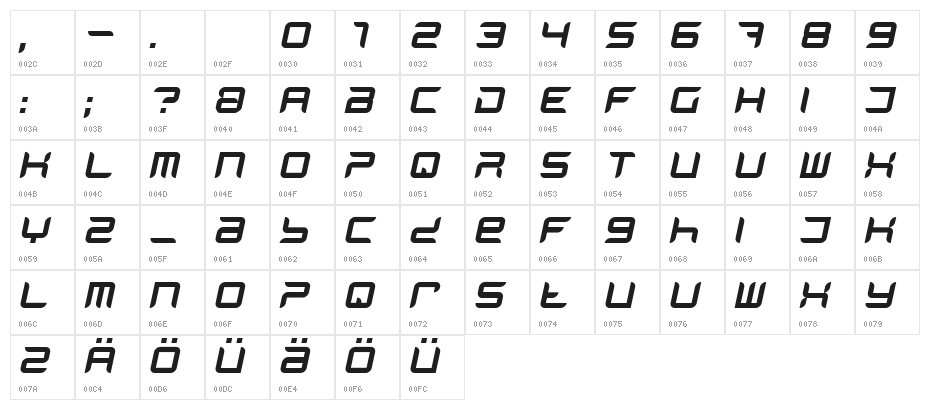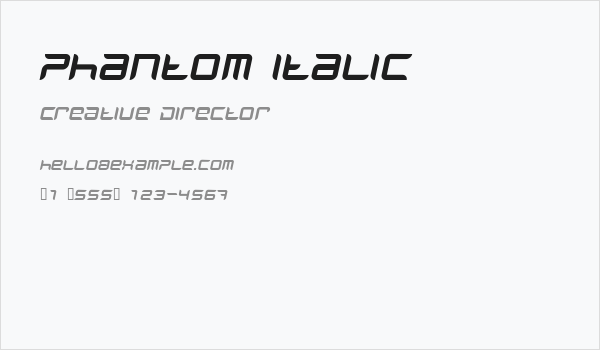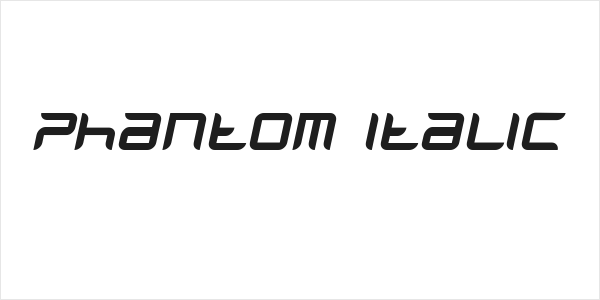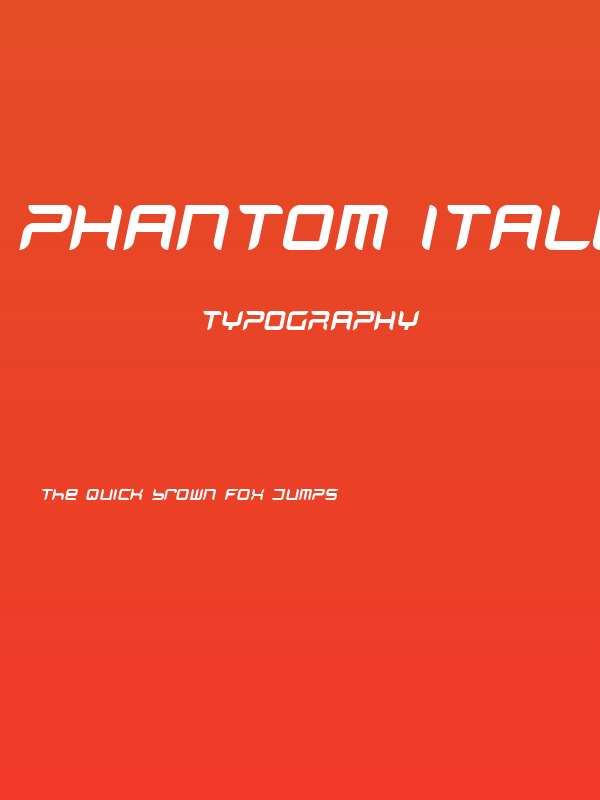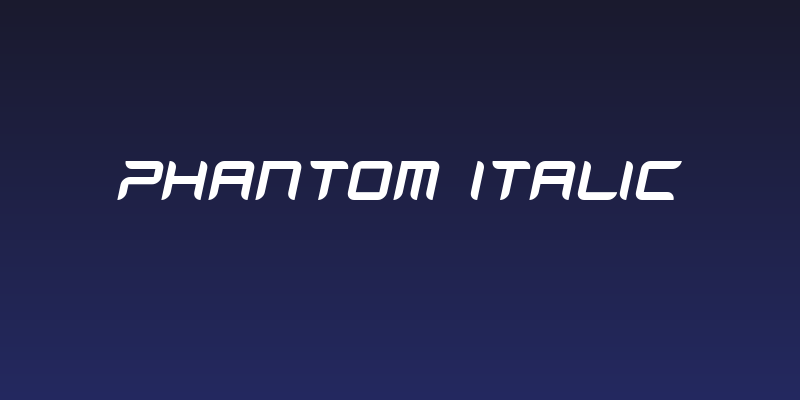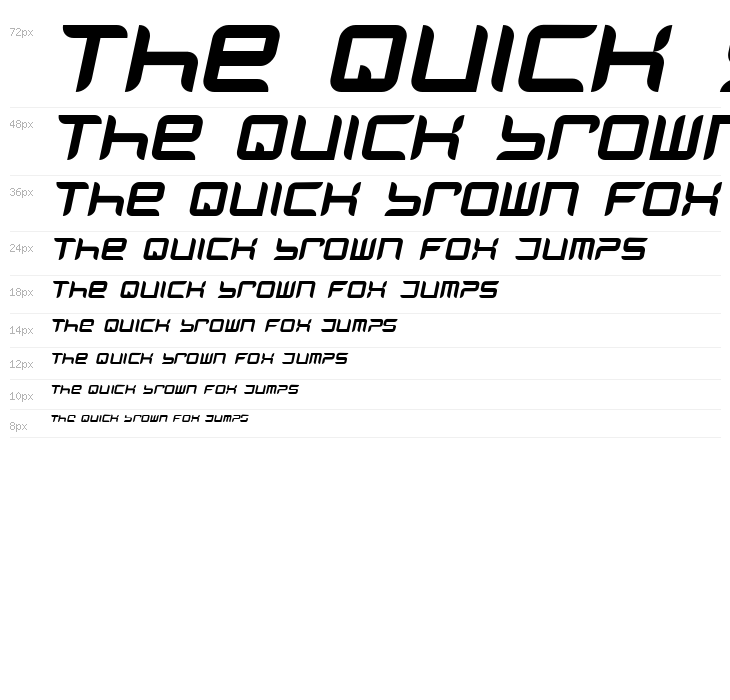
Phantom Italic Font
Phantom Italic Description
This font features a sleek, futuristic design with a distinct italic slant, giving it a dynamic and forward-moving appearance. The characters are crafted with smooth, continuous lines that create a sense of motion and speed. The uppercase and lowercase letters maintain a consistent style, with rounded edges and a slightly condensed form. The numerals and special characters follow the same aesthetic, ensuring uniformity across all glyphs. This font's modern and innovative look makes it suitable for projects that require a cutting-edge and technological feel.
Proposed ProjectsIdeal for technology branding, sci-fi movie posters, video game titles, and modern web design.